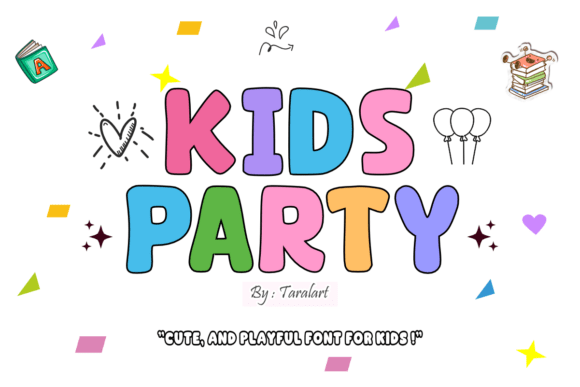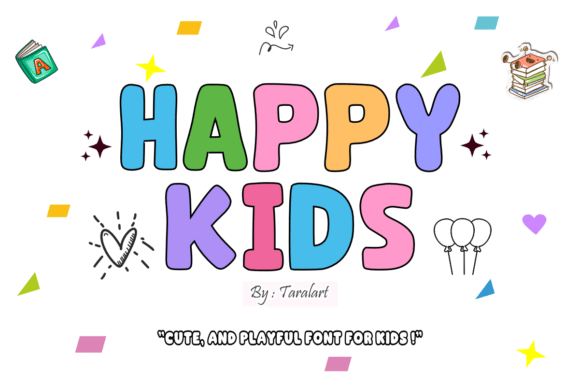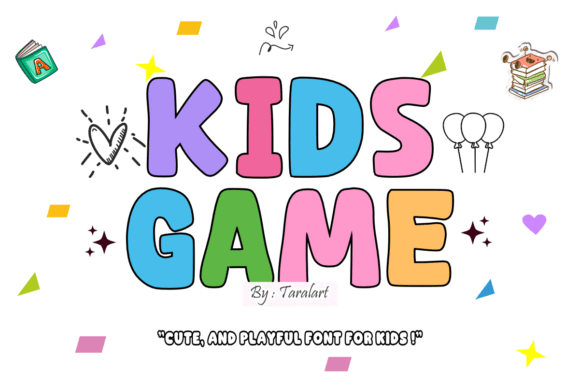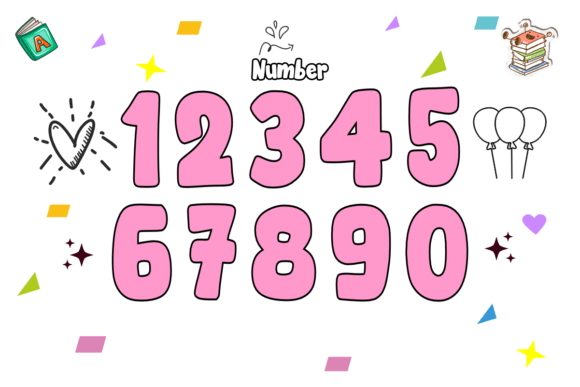
Introduction to Display Kids Font Font
Fonts play a crucial role in design, and the Display Kids Font font is a typeface that brings both character and versatility to any project. Whether you’re working on a branding project, a website, or a print design, the Display Kids Font font offers a unique style that can elevate your work.
Display Kids β A Fun and Colorful Font for Little Creatives Say hello to Display Kids , a bright and playful font designed to bring joy and energy to every design.
With its soft, rounded edges, bold shapes, and colorful vibe, this font is perfect for childrenβs projects, school materials, storybooks, invitations, and playful logos Each letter feels happy and full of character β just like a kidβs imagination.
Key Features of Display Kids Font Font
Why Choose Display Kids Font Font?
The Display Kids Font font is more than just a typeface β it’s a design tool that helps you communicate your message with style and clarity. Its unique character set and versatile design make it suitable for a wide range of applications, from elegant invitations to bold headlines.
With its carefully crafted letterforms and balanced proportions, the Display Kids Font font ensures readability and visual appeal across all mediums.
What makes Display Kids Font font special?
The Display Kids Font font stands out with its unique design, exceptional readability, and versatility across various design applications.